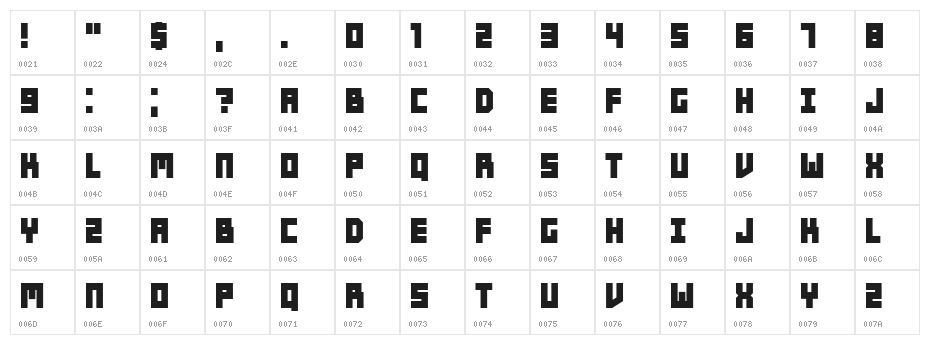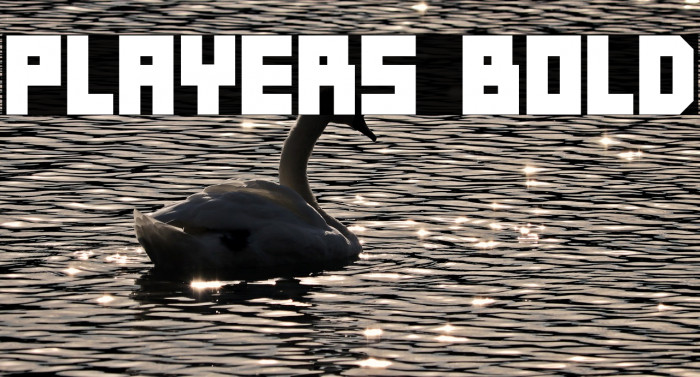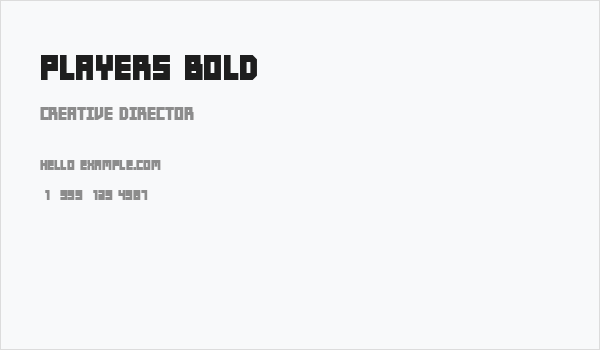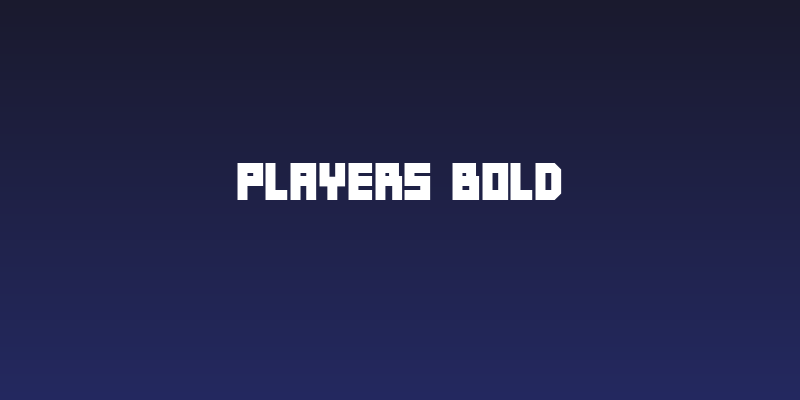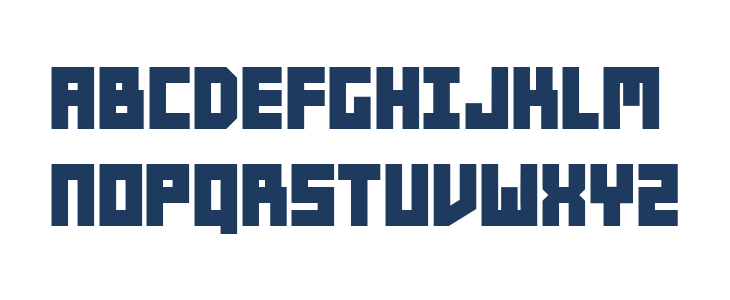
Players Bold Font
Players Bold Description
This bold, geometric font features a strong, blocky design with a modern and assertive presence. The characters are uniformly wide, creating a sense of stability and strength. Each letter is crafted with sharp angles and straight lines, giving it a futuristic and digital feel. The font's uppercase and lowercase letters maintain a consistent height, enhancing its uniform appearance. Numbers and special characters follow the same design principles, ensuring a cohesive look across all elements. This font is ideal for projects that require a bold statement and a contemporary edge.